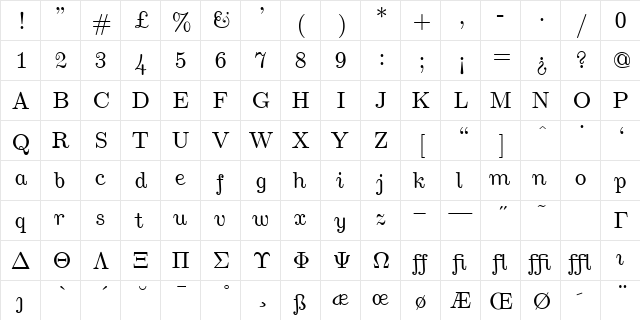
cmu10 Regular Font Preview
cmu10 Regular
cmu10 Regular Font Details
Design Context for cmu10 Typeface
cmu10 is a composed and adaptable typeface that performs quietly and consistently across a wide range of design contexts.